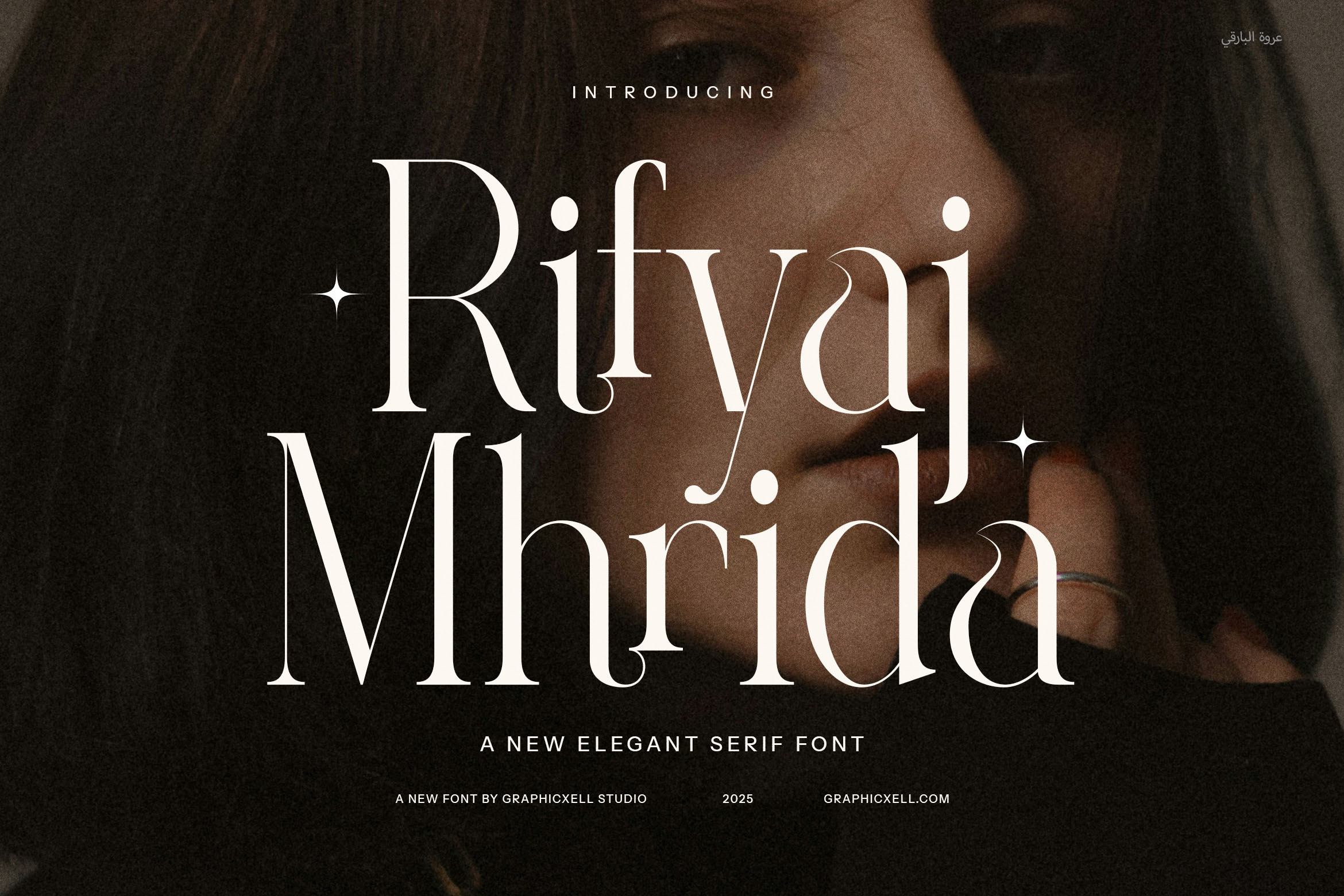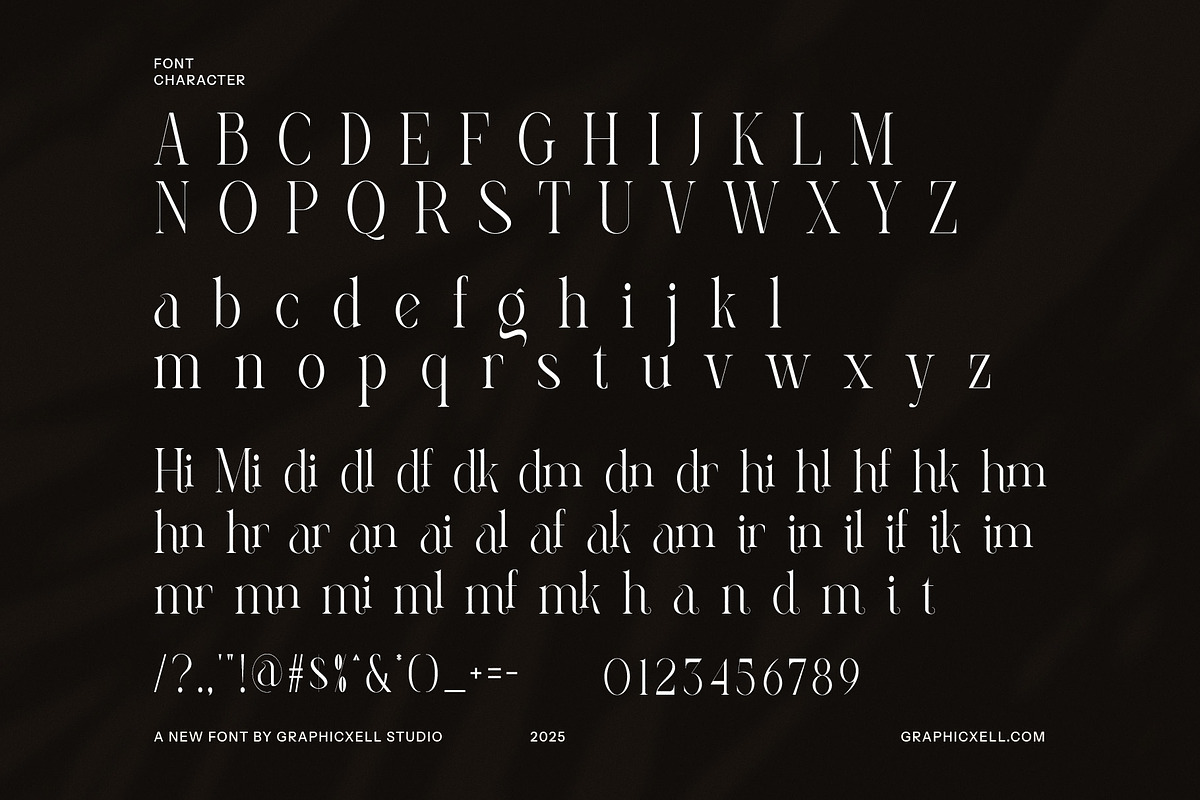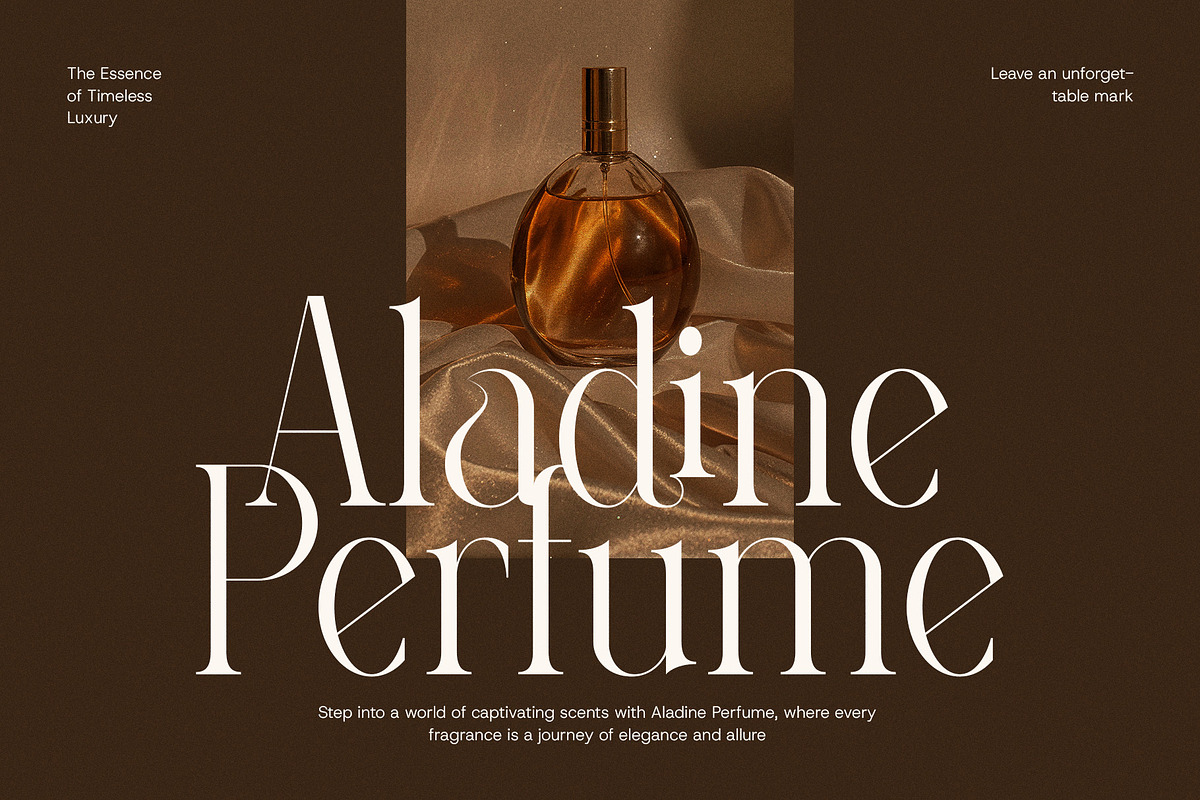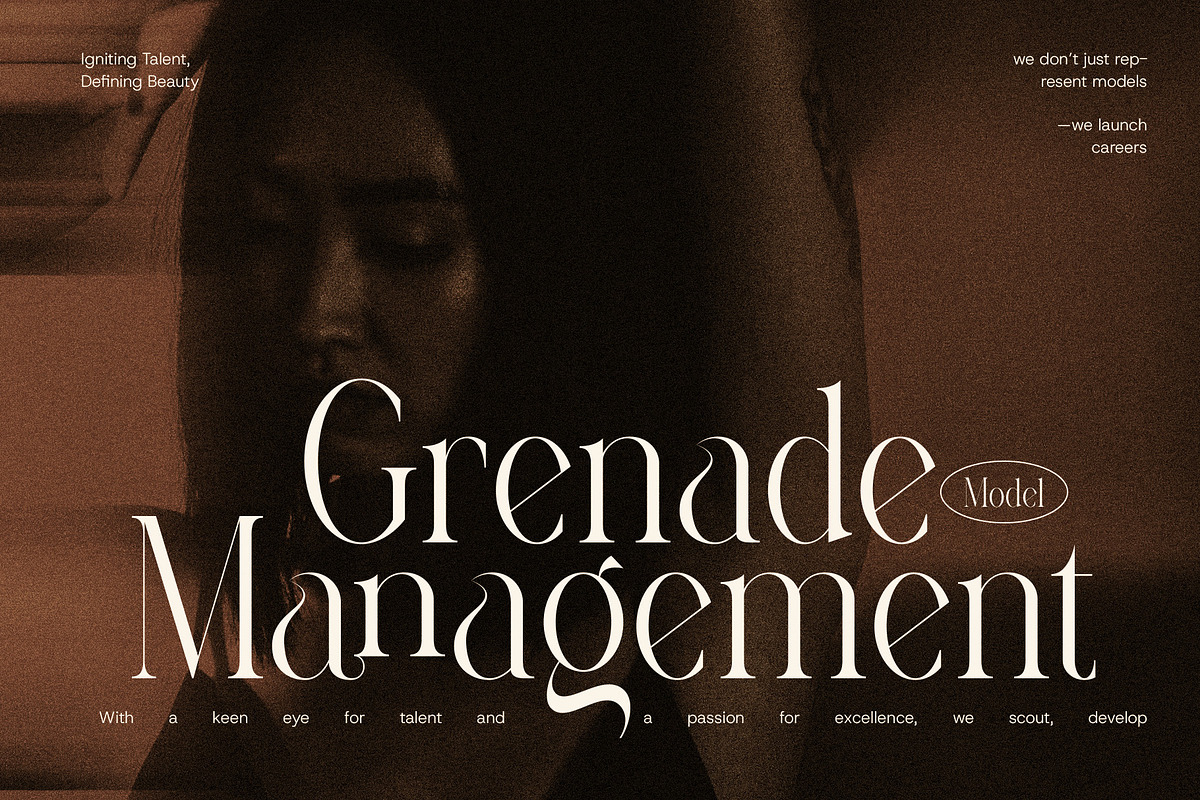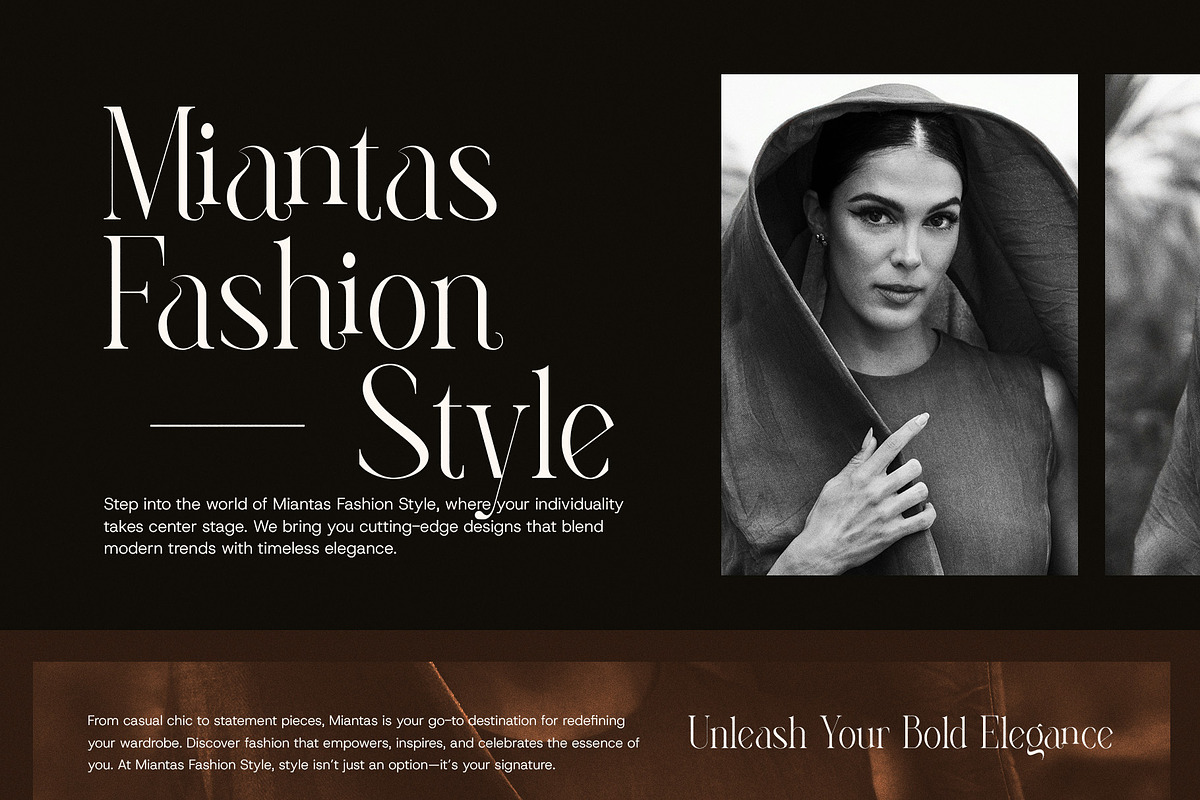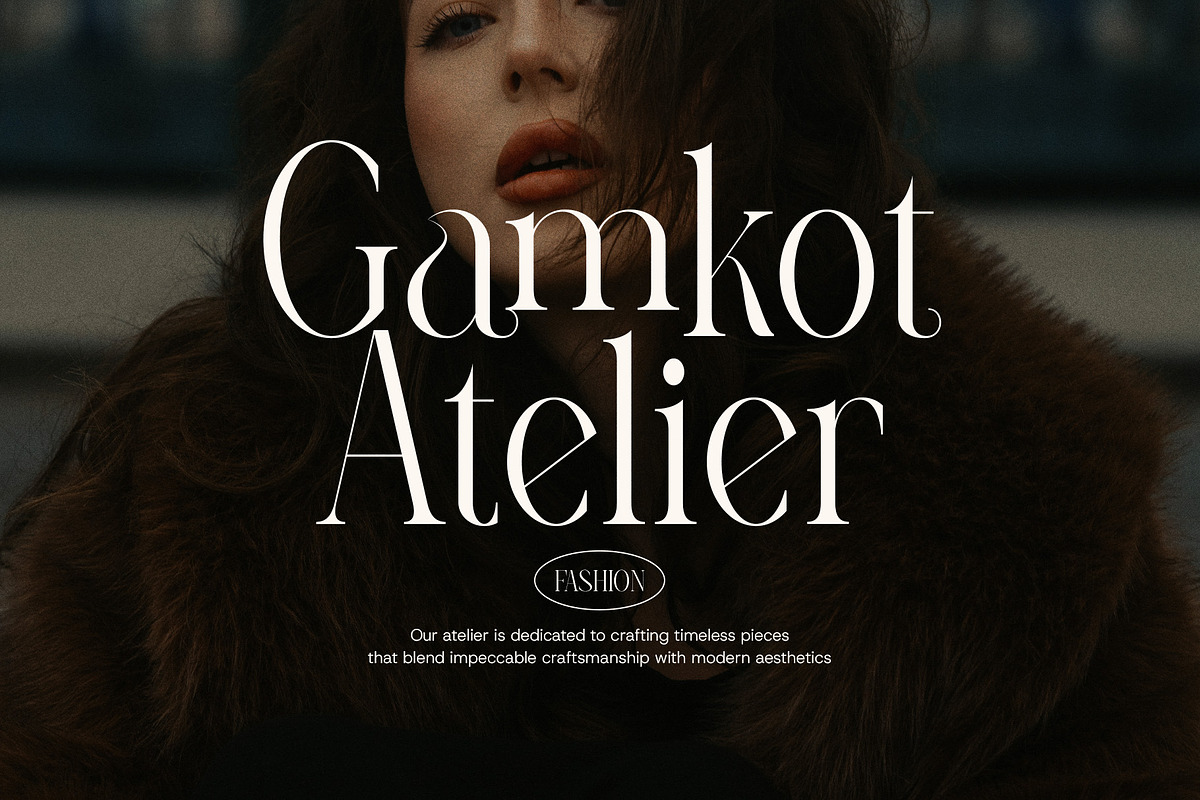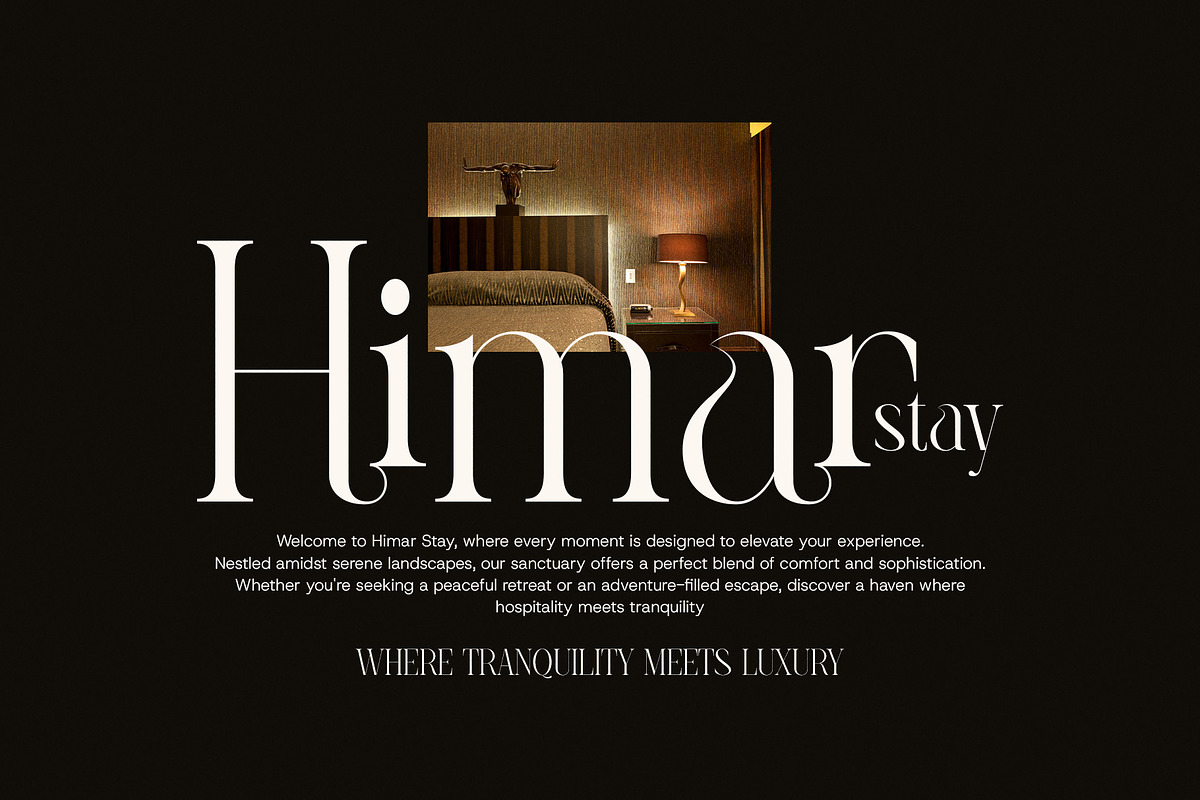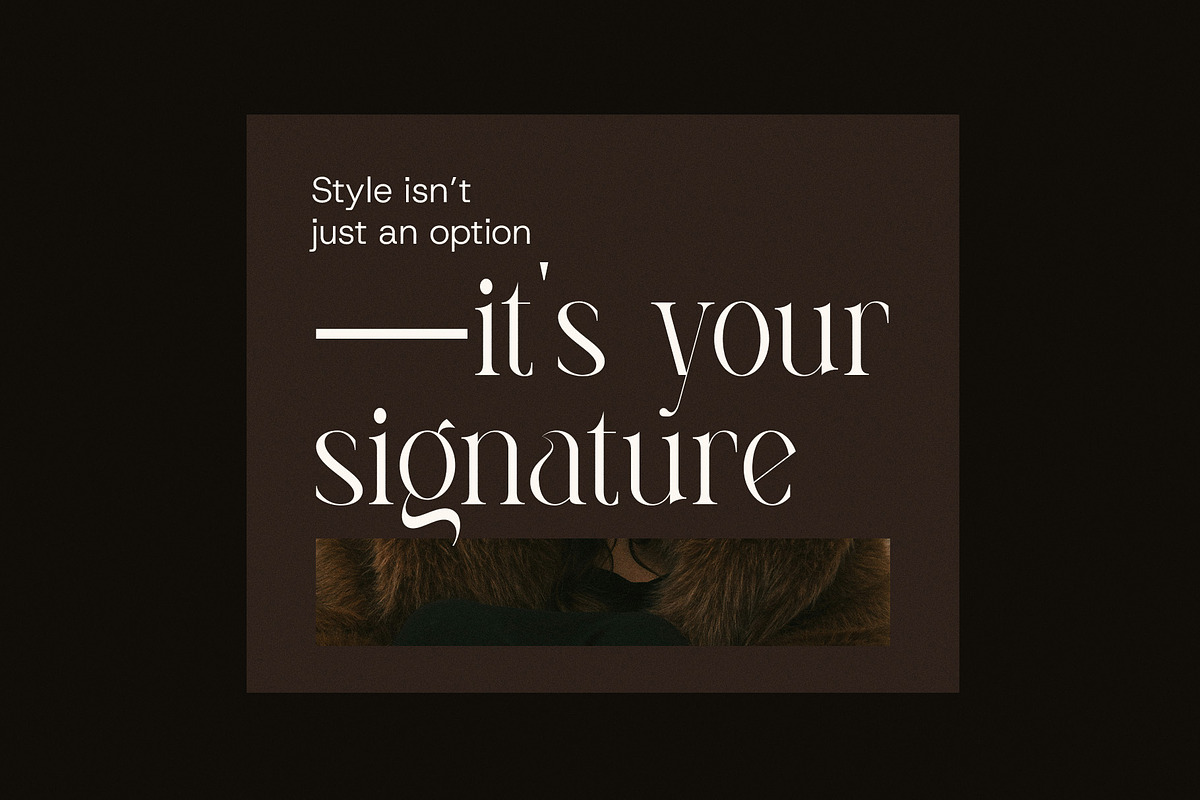
Rifyaj Mhrida Elegant Serif Font
Rifyaj Mhrida Elegant Serif Font is a striking blend of modern sophistication and timeless elegance. Designed to captivate and inspire, this serif font brings a refined yet distinctive aesthetic to any creative project. With its graceful curves, balanced proportions, and subtle details, Rifyaj Mhrida exudes an air of luxury and exclusivity.
Perfectly crafted for high-end branding, logos, and editorial design, this font enhances visual appeal with its clean yet artistic letterforms. The refined serifs and stylish ligatures give it a unique character, making it an excellent choice for premium magazines, boutique packaging, website headlines, and upscale advertisements. Whether used for minimalist layouts or bold statements, Rifyaj Mhrida seamlessly adapts to various design needs, ensuring an exquisite and professional look.
Beyond aesthetics, this font offers exceptional readability and versatility. Its well-balanced contrast between thick and thin strokes creates a harmonious flow, making it ideal for both print and digital applications. From luxury fashion brands to gourmet food packaging, from elegant invitations to modern business cards, Rifyaj Mhrida elevates any design with its undeniable charm.
If you're looking for a typeface that blends contemporary sophistication with classic elegance, Rifyaj Mhrida is the perfect choice. Its timeless appeal and unique design elements make it a must-have for designers who seek to create an effortlessly stylish and high-impact visual identity. Unlock the power of refined typography and transform your projects with Rifyaj Mhrida today.